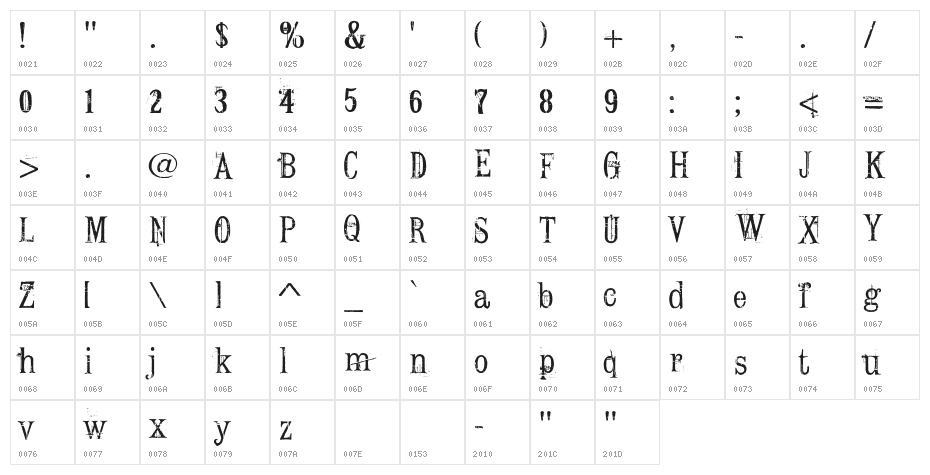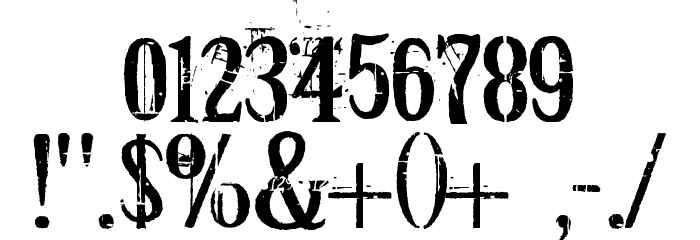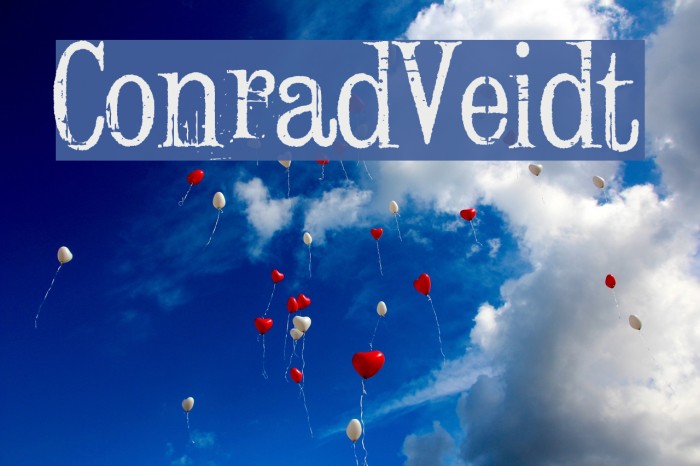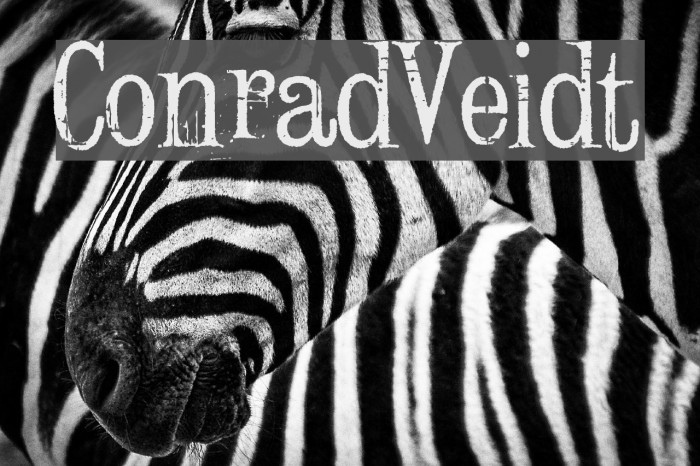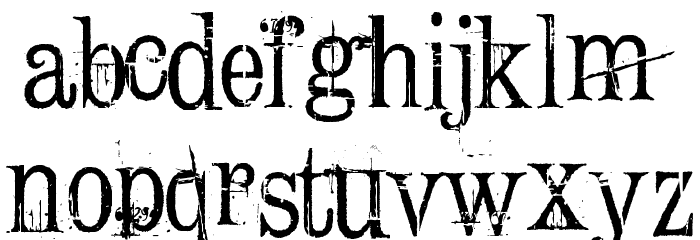
ConradVeidt Font
ConradVeidt Description
This font exhibits a distressed, grunge aesthetic with a serif style. The characters are marked by irregular, worn edges and a textured appearance, giving them a vintage, weathered look. The uppercase and lowercase letters maintain a traditional serif structure, but the added texture creates a unique, artistic flair. The numbers and special characters follow the same design, ensuring consistency across all glyphs. This font's distinct style makes it stand out, perfect for projects that require a bold, eye-catching typeface with a touch of nostalgia.
| Overall Style | Vintage, Decorative |
| Proposed Projects | Ideal for poster designs, album covers, vintage-themed branding, and artistic projects requiring a bold statement. |